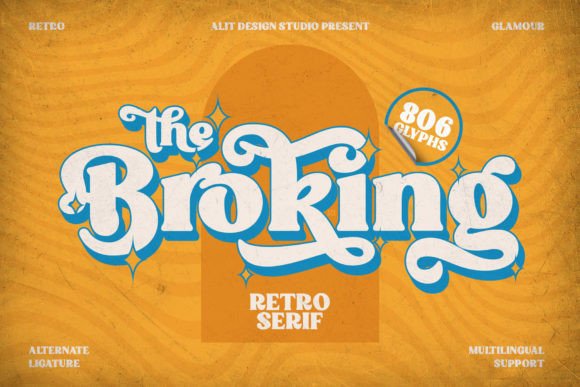
Looking for a new display font that will elevate your Instagram profile? Look no further than Broking Font by Alit Design. This cool and retro typeface is sure to catch the eye of any potential followers, and make your profile stand out from the crowd.
Broking Font is not only stylish, but also highly detailed and carefully crafted. Each letter is designed with precision, making this font a great asset to any font library. Whether you're creating graphics, logos, or any other type of design, Broking Font is sure to add a touch of retro charm.
One of the best features of Broking Font is that it is PUA encoded. This means that accessing all the glyphs and ligatures is a breeze. You can easily create unique and interesting designs using the many characters available with this font.
But Broking Font isn't just about the technical details. This font is all about having fun and being creative. Its playful design and retro vibe will transport you back to the good old days, while still remaining fresh and modern.